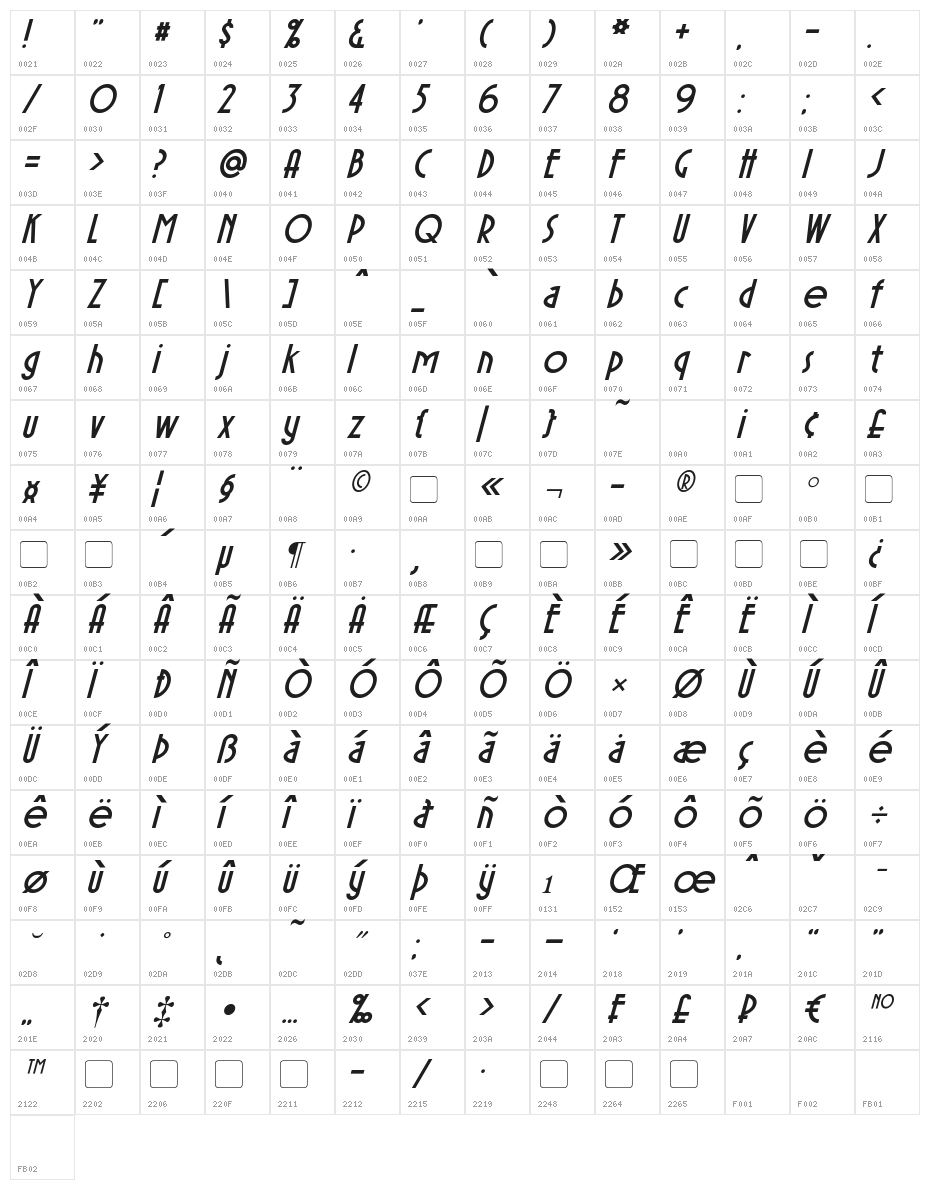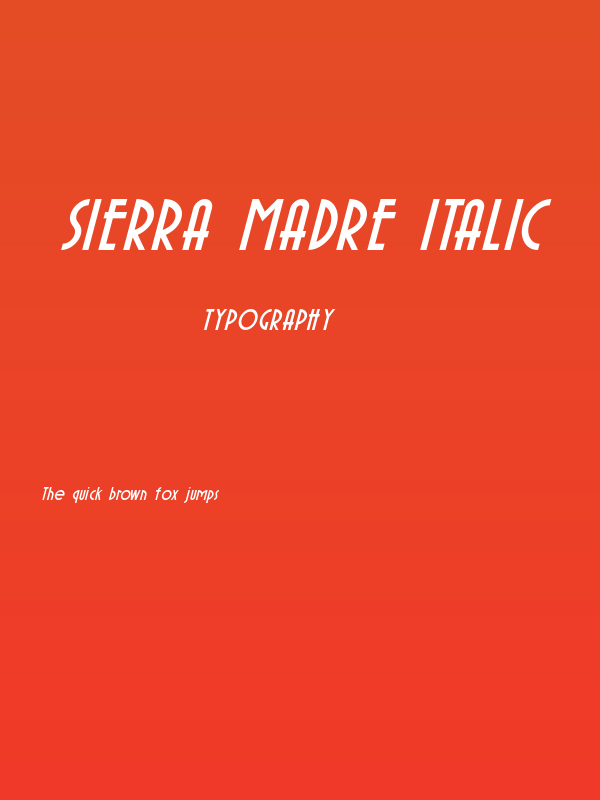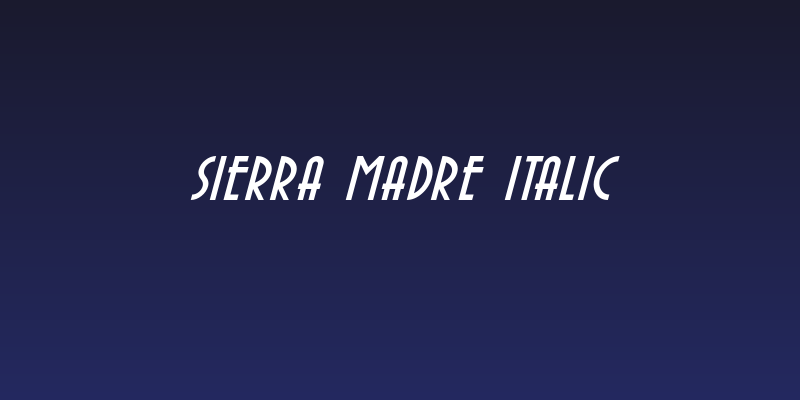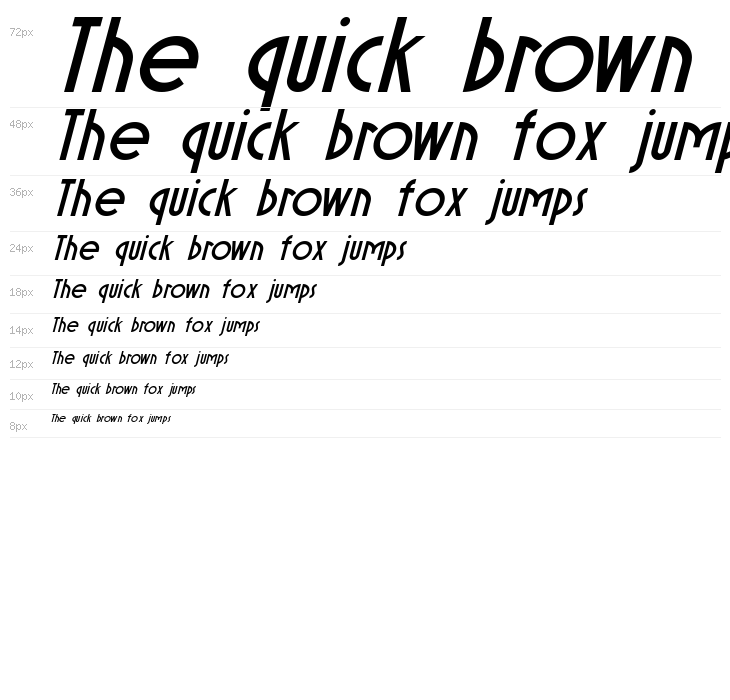
Sierra Madre Italic Font
Sierra Madre Italic Description
This font features a dynamic and energetic style with a forward-leaning italic slant, giving it a sense of motion and fluidity. The characters are bold and slightly condensed, with sharp angles and clean lines that create a modern and sleek appearance. The uppercase letters are tall and commanding, while the lowercase letters maintain a consistent flow, enhancing readability. The numerals are distinct and well-proportioned, complementing the overall design. Special characters are crafted with the same attention to detail, ensuring versatility across various applications.